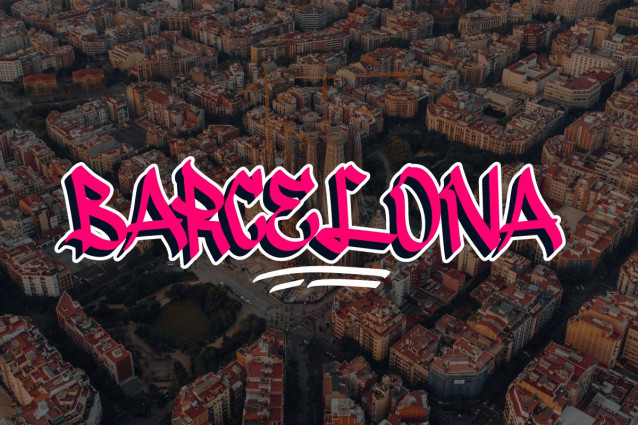
Airosol Font
Airosol Font It has a look of strength, character, and build. The shape has a few kinks here and there. I’d say that adds to its charm—and it does.It’s great for headlines and titles, but also very easy to read in sentence form.It’s perfect for branding and packaging, books, invitations, and anything else you want in a casual setting — without being too childish.